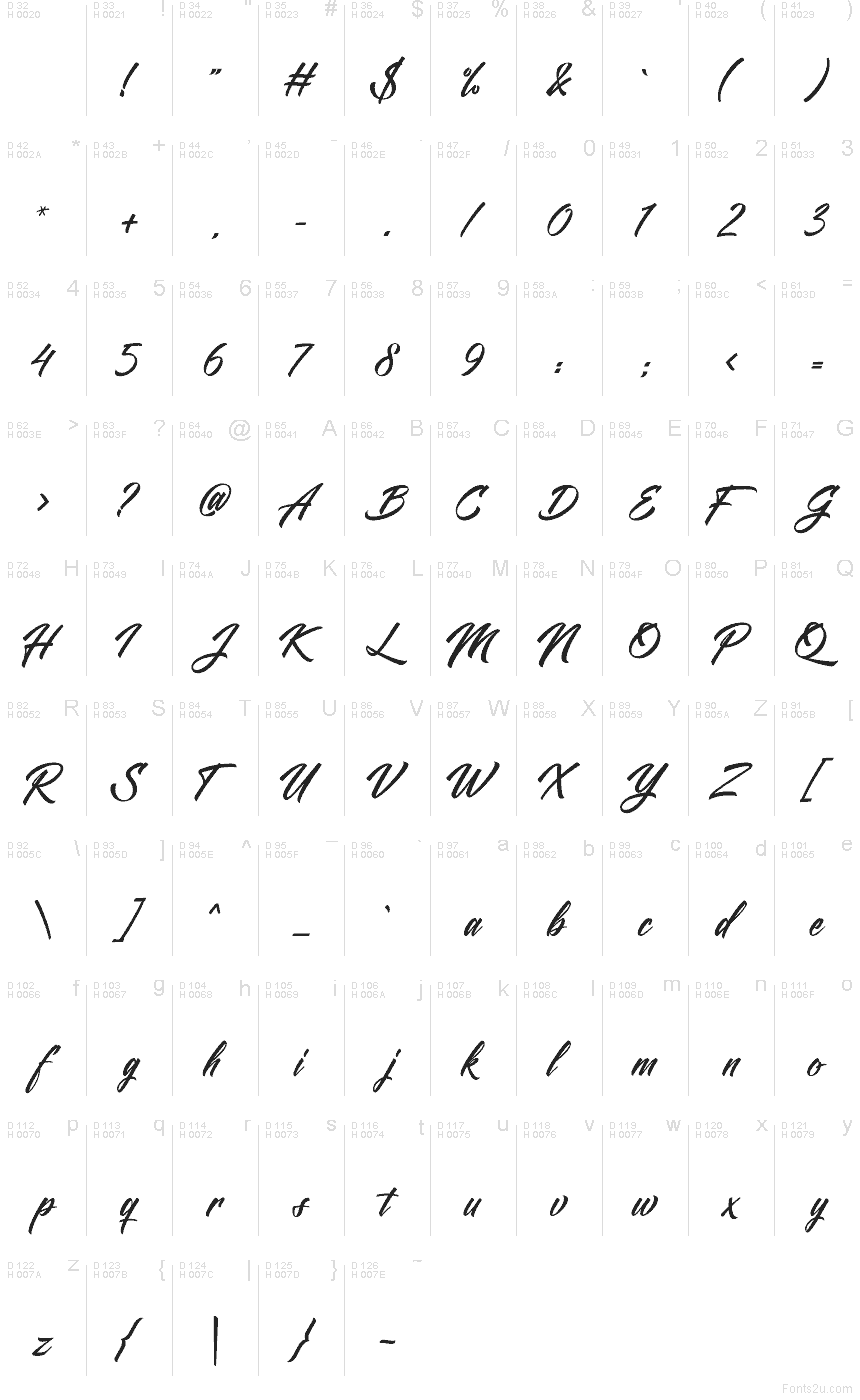
Pastel Trunk font by Riyadh Rahman of Ergibi Studio is a free brush script typeface that finally hits the sweet spot between flair and legibility. Its strokes feel like fresh ink pulled across smooth paper-lively, slanted, and expressive-yet the letters lock together cleanly, without the usual chaos of many brush scripts. The result is handwriting that looks confidently casual, polished enough for brand work but still warm and human.
Using Pastel Trunk, you can give logos, product packaging, social media graphics, quote posts, event invites, and lifestyle blog headers a unified, hand-crafted voice that stays easy to read at a glance. The rhythm of this free font flows best at medium to large sizes, where the sweeping curves can really breathe. Pair it with a simple, light sans serif for body text to keep the script in the spotlight without overwhelming your layout.